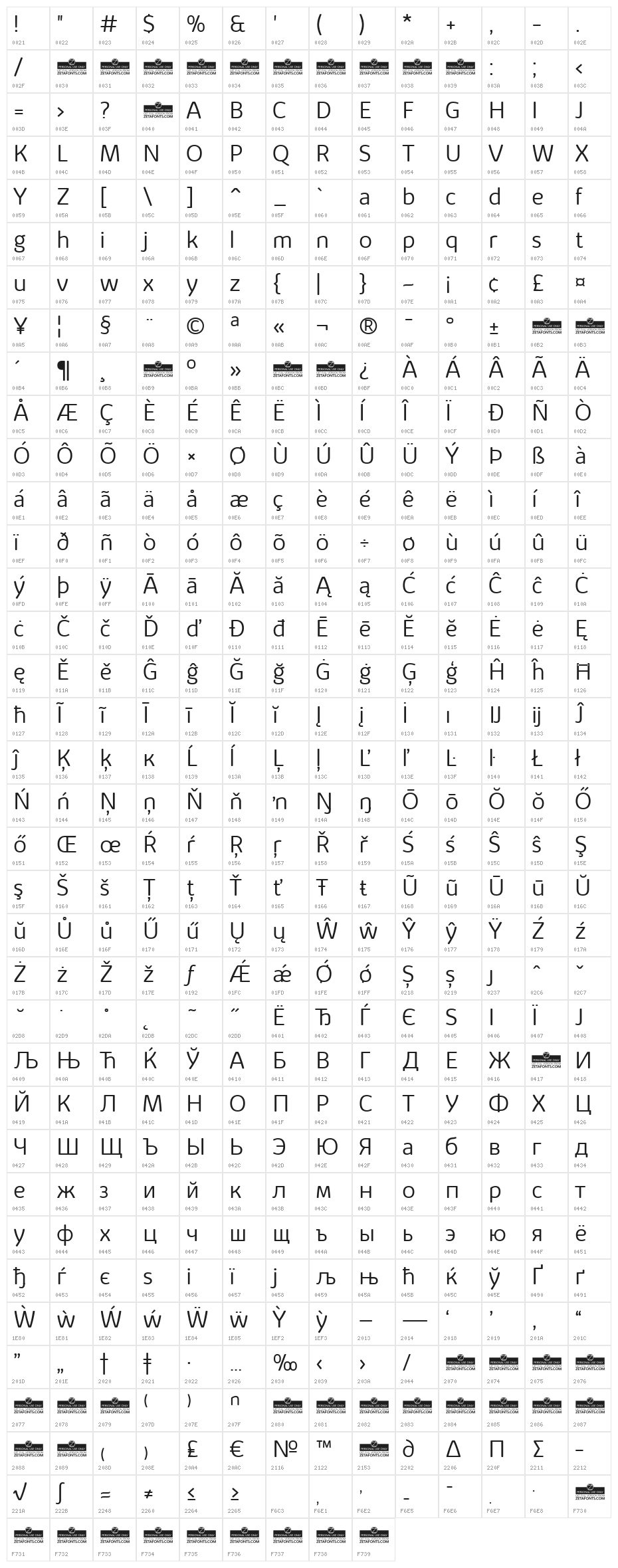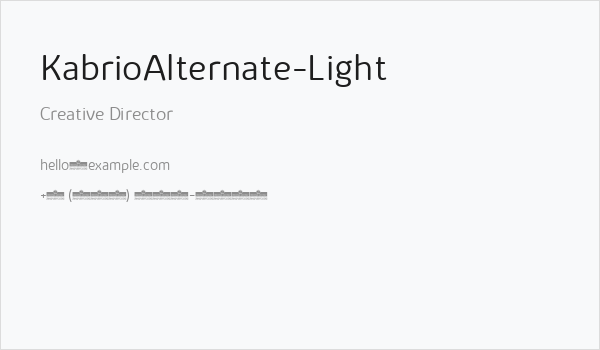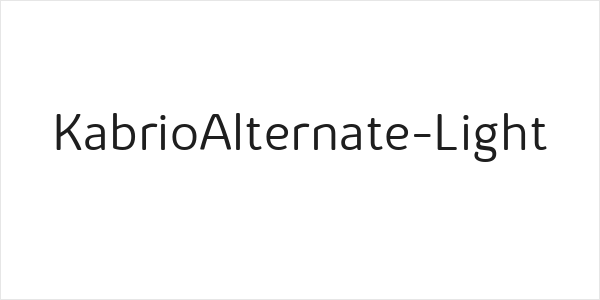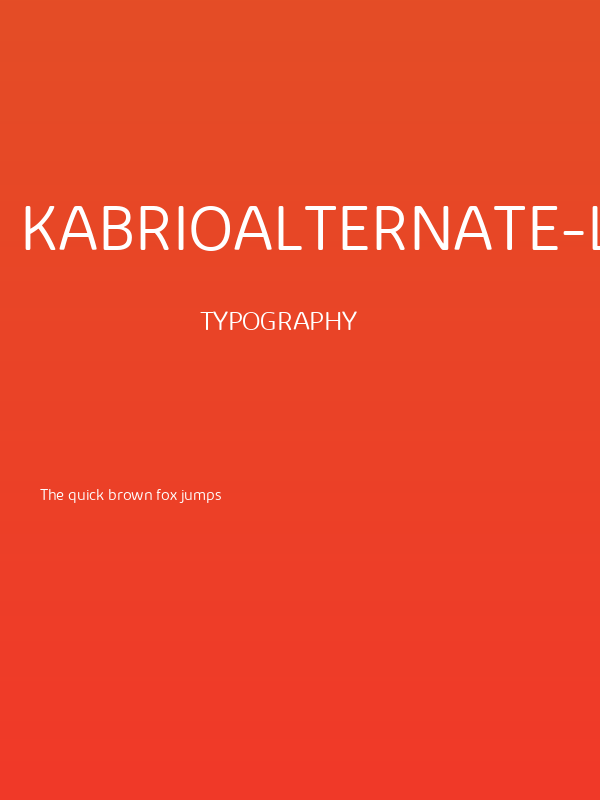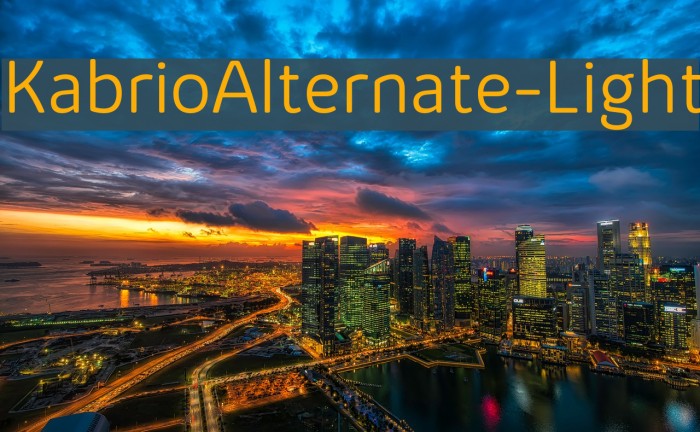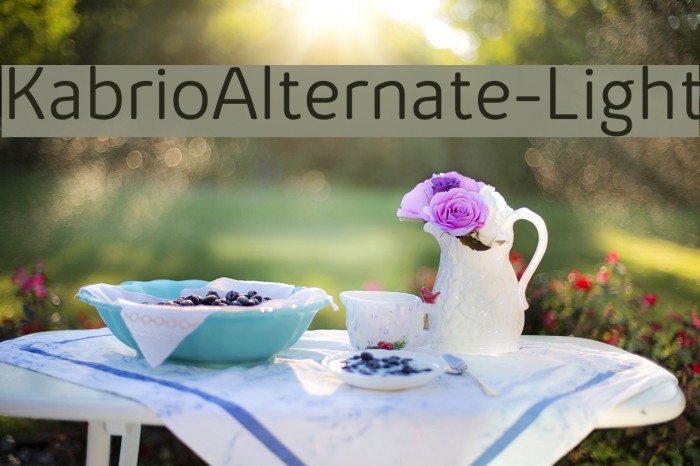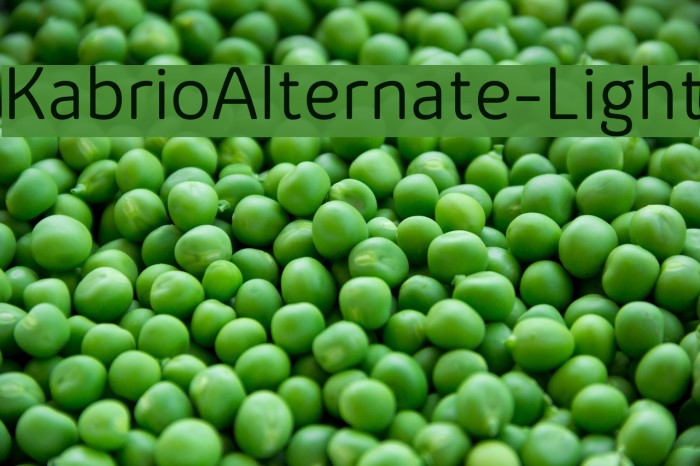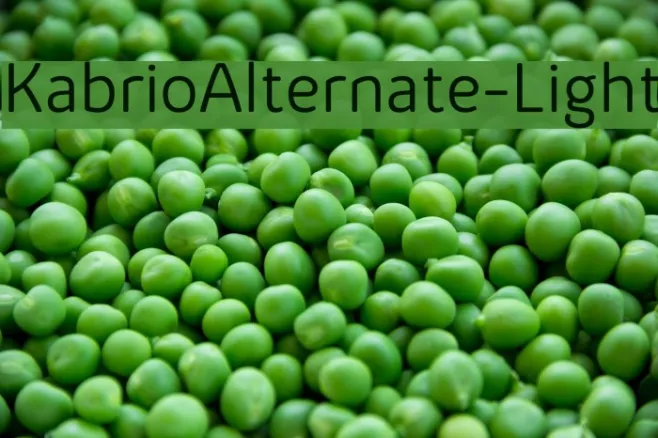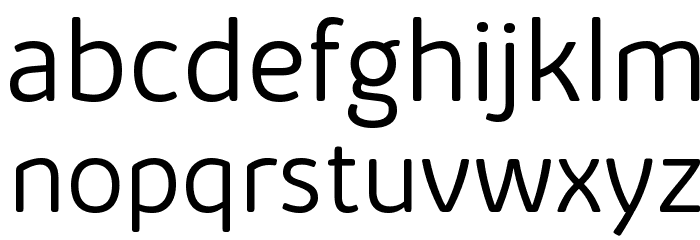
KabrioAlternate-Light Font
KabrioAlternate-Light Description
This font exhibits a clean and modern sans-serif style, characterized by its light weight and smooth curves. The letters are evenly spaced with a consistent stroke width, providing a harmonious and balanced appearance. The uppercase and lowercase letters maintain a uniform height, contributing to its readability. The numerals and special characters are designed with the same attention to detail, ensuring a cohesive look across all text elements. Its simplicity and elegance make it suitable for a variety of design applications.